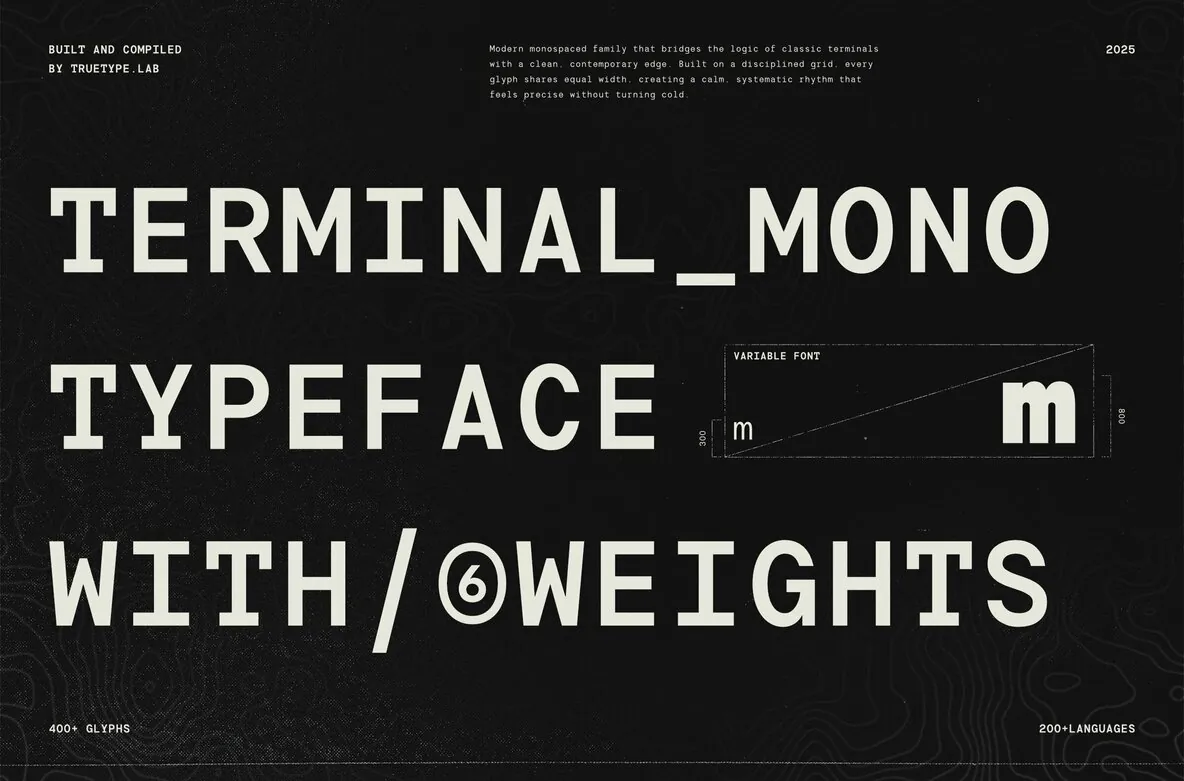
Terminal Monospace: Structured Clarity in a Modern Typeface
Terminal Monospace is a precisely engineered monospace font constructed on a disciplined grid system. It offers clarity and structure while embodying a contemporary aesthetic that balances the logic of classic terminal fonts with refined modernity. Designed with six weights and a continuous variable font axis, it provides flexibility for a range of graphic design applications.
Features:
Modern monospace system typeface
Six weights: Light through Extra Bold
Variable font with continuous weight axis
Consistent grid-based structure
Over 400 glyphs
Supports more than 200 languages
Multiple numeral styles including regular, circled, and filled
Optimized for user interfaces, editorial layouts, data visualization, and display purposes
Designed to maintain clarity, rhythm, and typographic hierarchy
Terminal Monospace suits designers seeking a font that combines precision with versatility. Its structured rhythm enhances readability across digital and print media, making it a reliable choice for coding environments and sophisticated editorial projects.